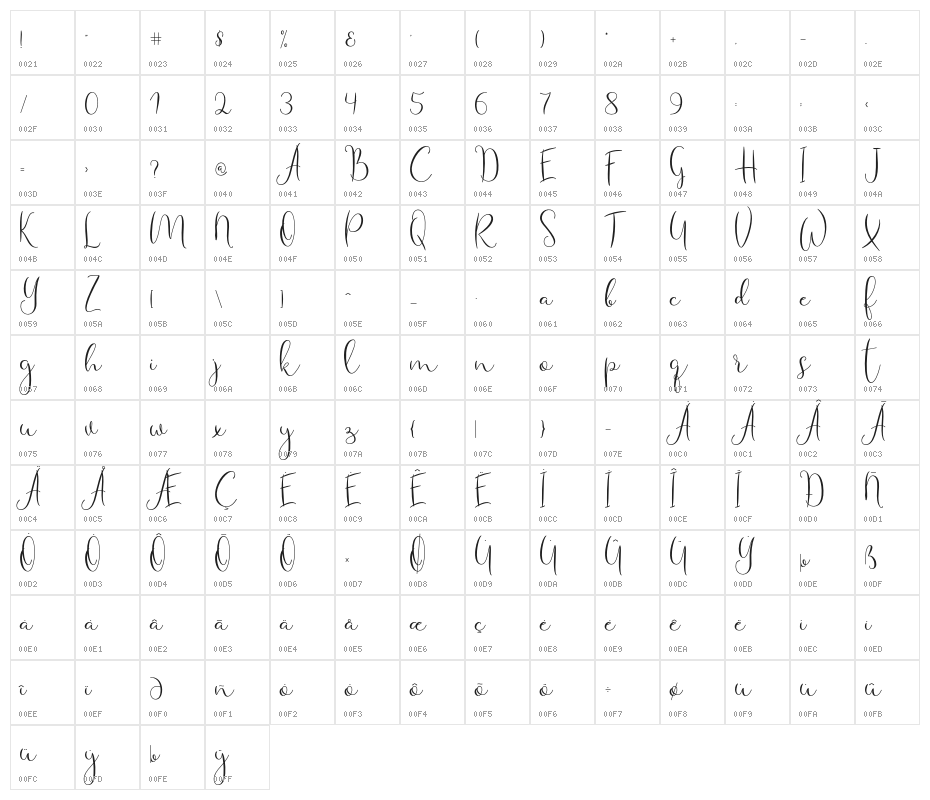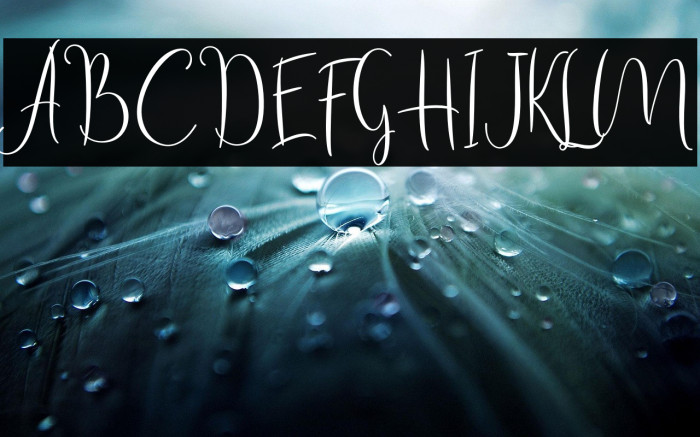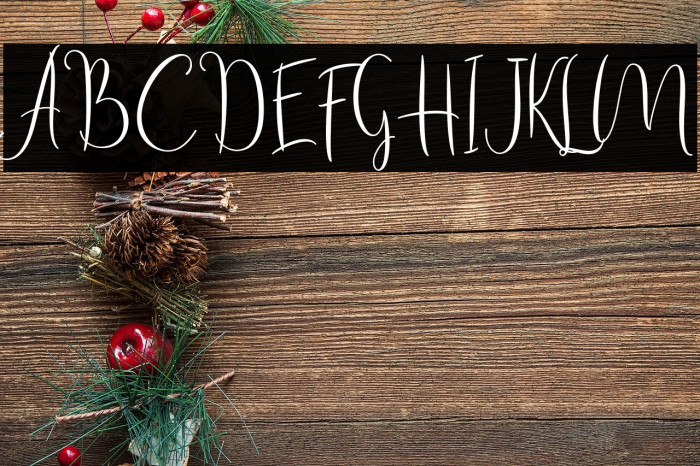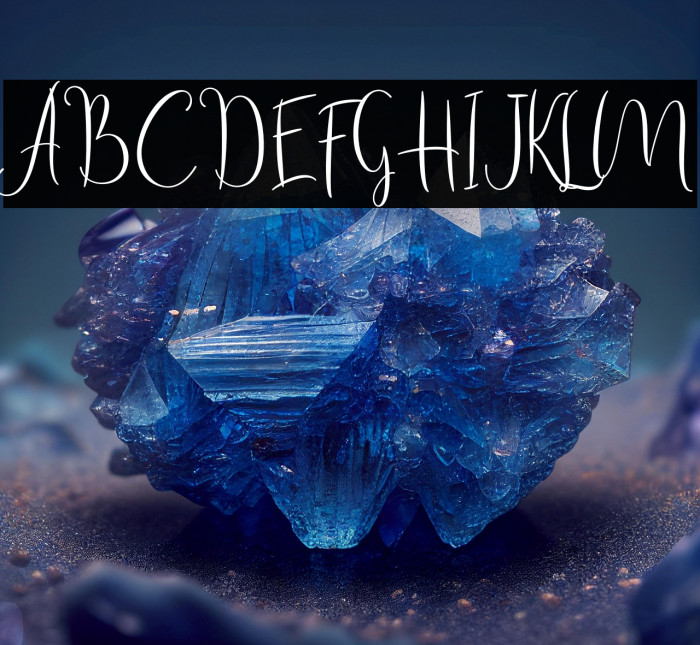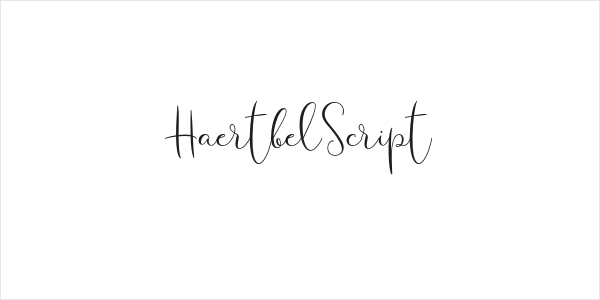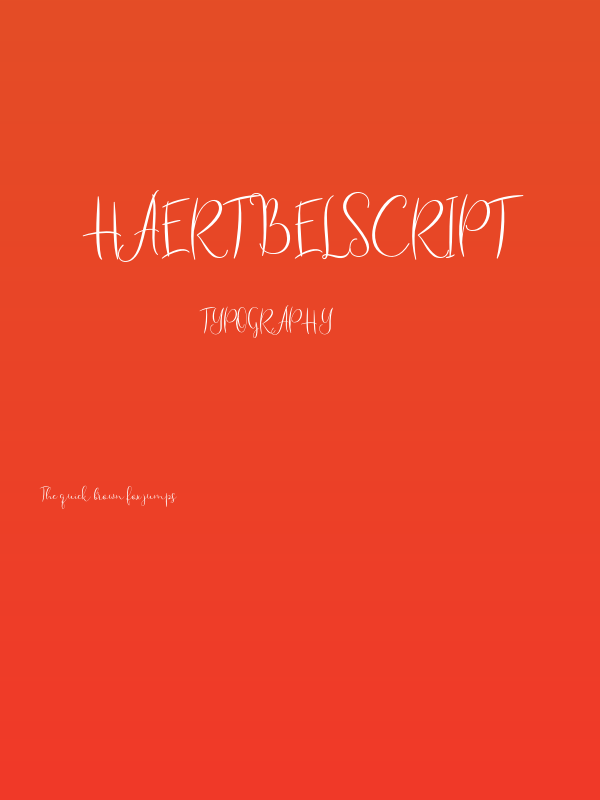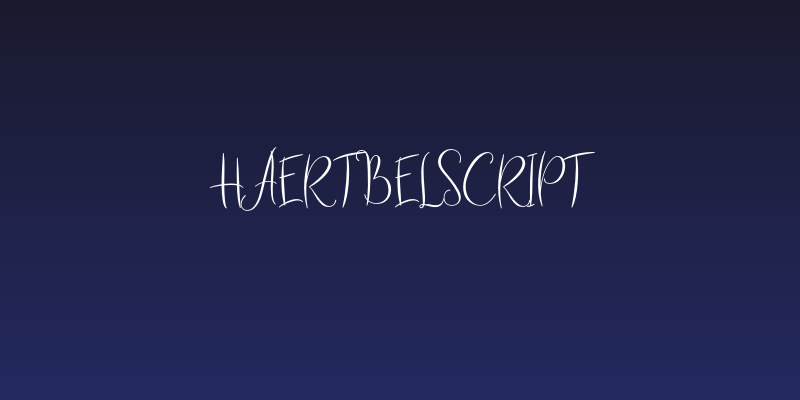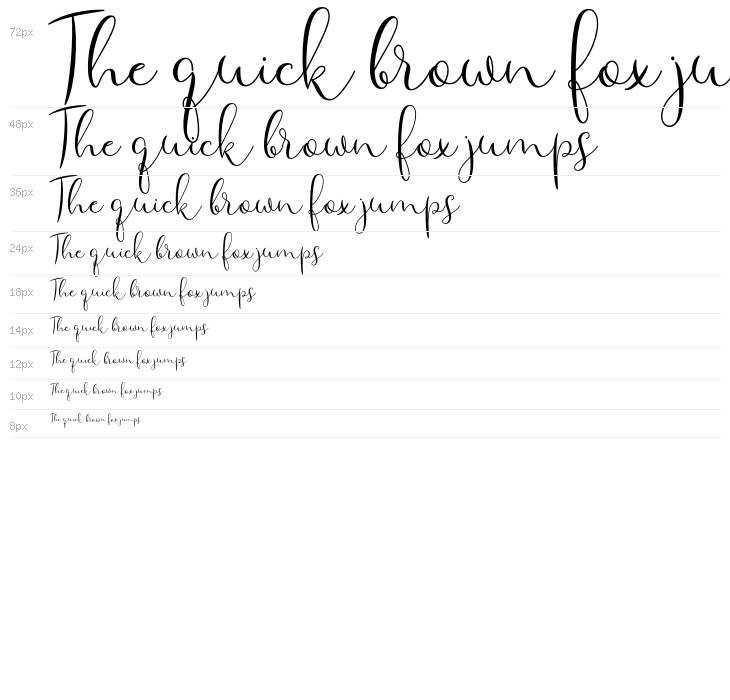
HaertbelScript Font
HaertbelScript Description
This font features an elegant and flowing script style, characterized by its smooth, cursive letterforms that mimic natural handwriting. The uppercase letters are tall and graceful, with sweeping curves and loops that add a sense of movement and fluidity. The lowercase letters maintain a consistent style, with elongated ascenders and descenders that enhance the font's delicate appearance. The numerals are designed to match the script's aesthetic, with a slight slant and rounded edges. Special characters are crafted with the same attention to detail, ensuring a cohesive look across all glyphs. This font is perfect for projects that require a touch of sophistication and elegance.
| Overall Style | Elegant |
| Use Case | Logos, Invitations, Decorative text |
| Proposed Projects | Ideal for wedding invitations, greeting cards, branding, and logo design. |